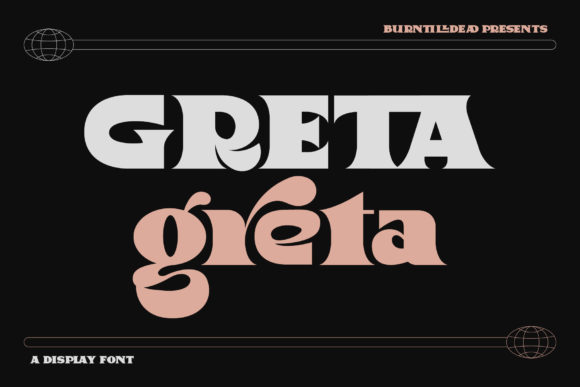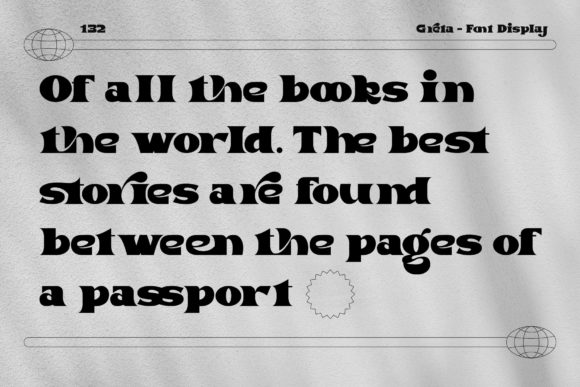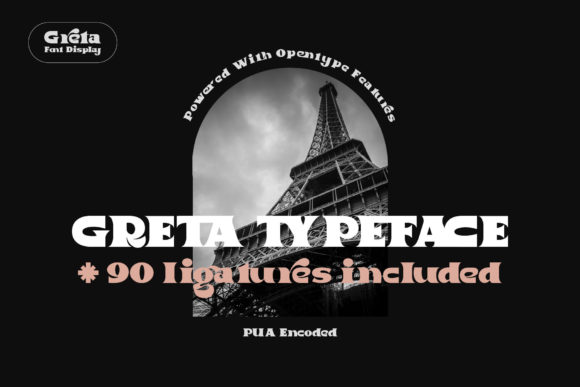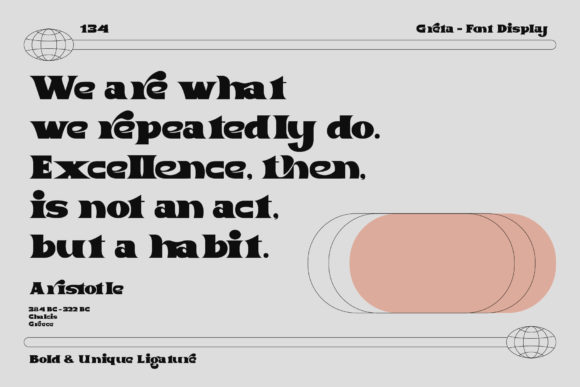
Greta Font: A Bold Display Font for Eye-Catching Logo Design
About the Greta Font
Introducing the Greta Font, a beautifully crafted typeface designed to elevate your creative projects. Greta is a bold, thick lettered display font. No matter the topic, this font will be an incredibly asset to your fonts’ library, as it has the potential to elevate any creation. Greta is PUA encoded which means you can access all of the glyphs and swashes with ease!
Greta’s bold, thick letterforms make it ideal for headlines, posters, and branding applications where a strong visual impact is desired. It excels in short, impactful statements and works particularly well for logos and short-form marketing materials. However, its weight and design are not suited for body text or UI elements; the thick strokes would hinder readability in extended passages.
Greta projects a confident, powerful personality, suitable for brands conveying strength, authority, or a modern, bold aesthetic. Avoid using it where a softer, more approachable image is required.